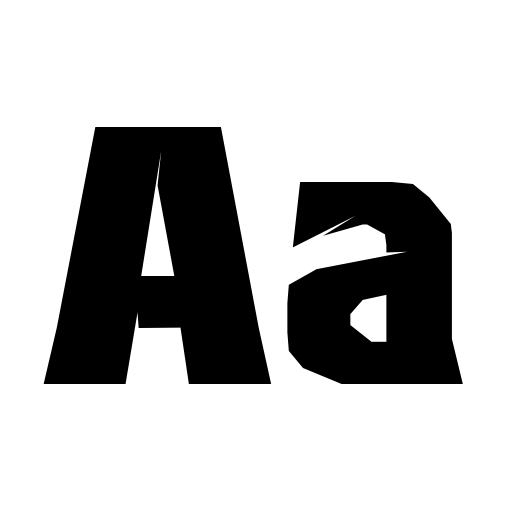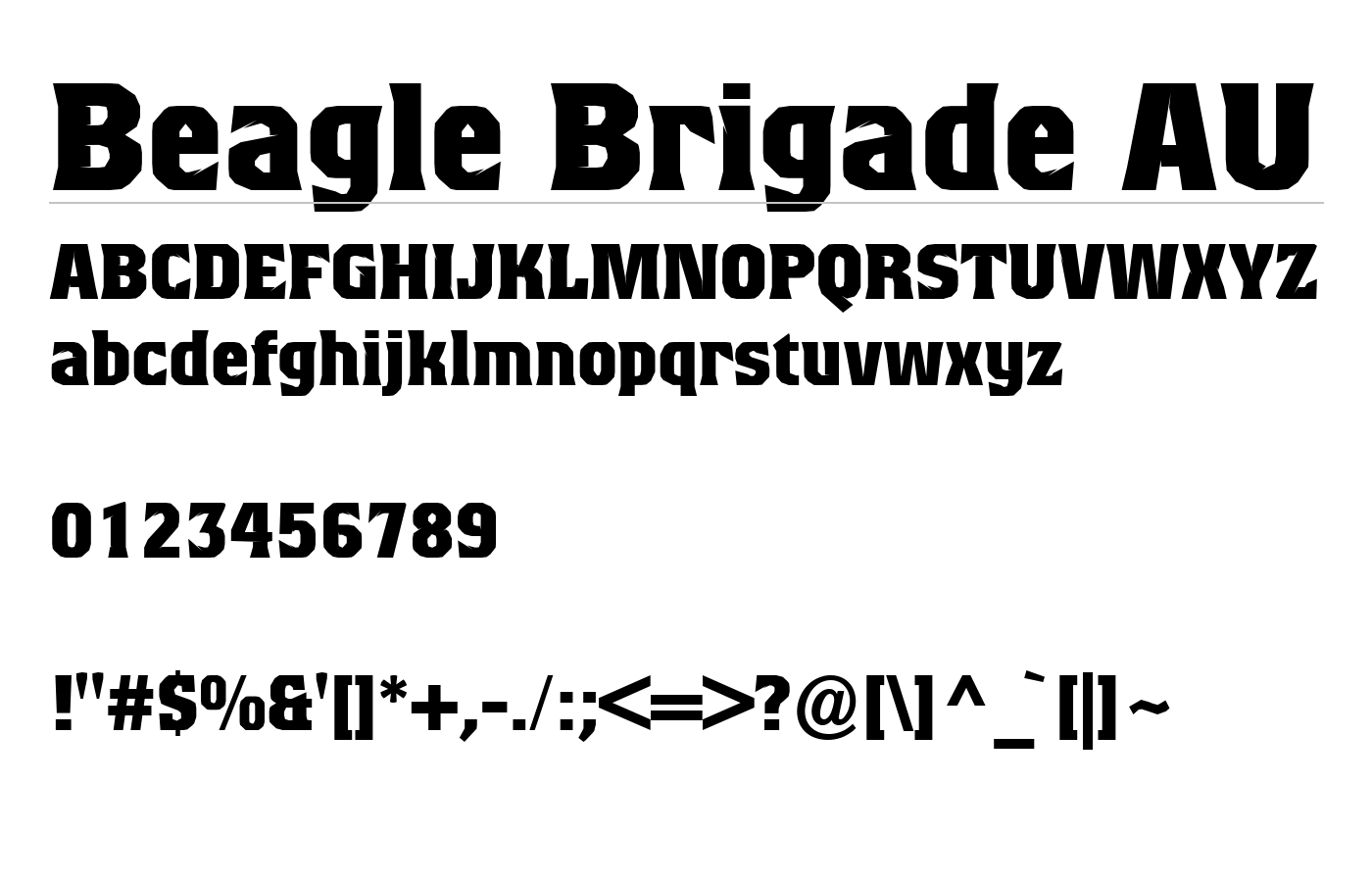
Beagle Brigade AU is a bold and condensed sans serif font with a strong, rugged character and sharp, angular edges that give it a distinctive, adventurous feel. Its sturdy letterforms with high x-height and uniform stroke weight make it ideal for impactful headlines, logos, or branding that requires a bold and energetic presence. This font works especially well for projects related to sports, outdoor activities, or dynamic brands seeking a powerful and modern look.
Beagle Brigade AU Font